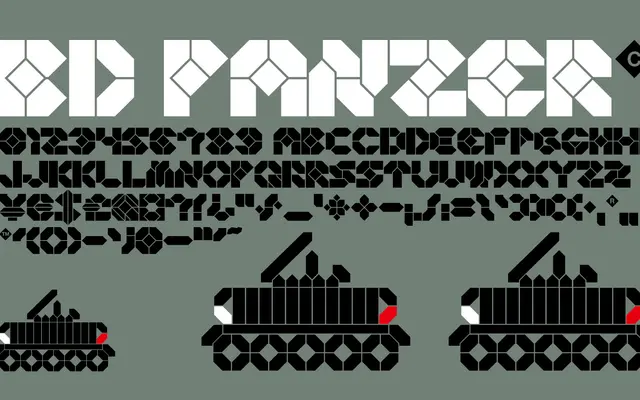
BD Panzer
Type Different · 2006
An uppercase LCD-style display font from 2006, offering a regular and outlined variant with alternate lowercase glyphs suited to technology titlings.
Built around a bold liquid crystal aesthetic, the face is primarily uppercase with stylised alternate forms on the lowercase characters. Two styles are available: Regular and Outlined. Coverage spans basic Latin with extended accented characters for a range of Western European languages, keeping it practical for straightforward display use.
A bold, uppercase liquid crystal display-style typeface with stylised alternate lowercase glyphs, squarely in the techno or LCD display genre used for titling and tech-themed work.